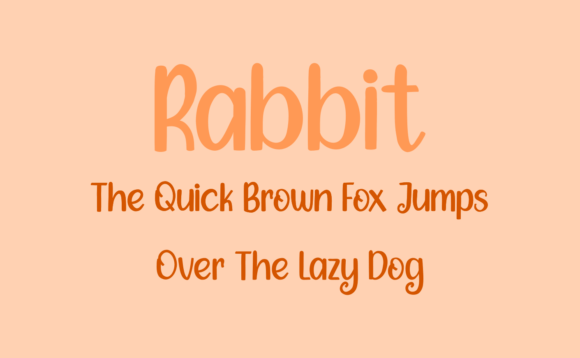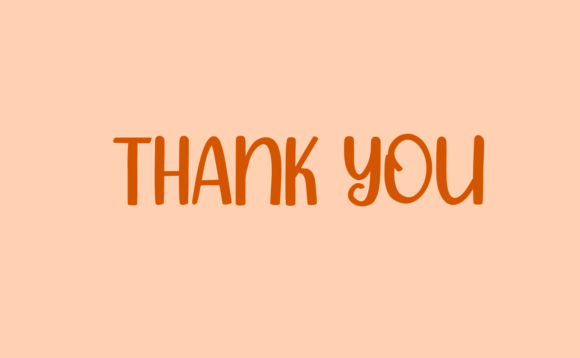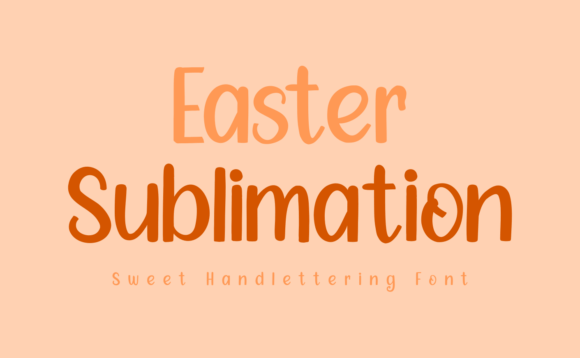
Easter Sublimation Font: Add a Touch of Whimsy to Your Designs
Are you looking for a font that can add a playful and casual touch to your Easter-themed designs? Look no further than the Easter Sublimation font! This fun and versatile handwritten font is perfect for a wide range of design ideas, from Easter-themed crafts to spring-inspired projects.
What is Easter Sublimation Font?
Easter Sublimation is a carefully crafted handwritten font that exudes a sense of fun and playfulness. Its casual and whimsical feel makes it an excellent choice for designers and crafters who want to add a personal touch to their work. The font’s versatility is one of its standout features, making it suitable for various design projects, including:
- Easter-themed crafts, such as printable art, party decorations, and gift tags
- Spring-inspired projects, like gardening or outdoor-themed designs
- Handmade products, such as customized mugs, t-shirts, or tote bags
- Digital products, like printable planners, journals, or wall art
Key Features of Easter Sublimation Font
So, what makes Easter Sublimation font so special? Here are some of its key features:
- Handwritten style: The font’s handwritten style gives it a personal and casual feel that’s perfect for creating unique designs.
- Versatile: Easter Sublimation font can be used for a wide range of design projects, from fun and playful to more serious and elegant.
- Easy to read: Despite its playful feel, the font is easy to read, making it suitable for designs that require a clear and legible text.
- Customizable: The font can be easily customized to fit your design needs, including changing the color, size, and style.
Tips for Using Easter Sublimation Font
To get the most out of Easter Sublimation font, here are some tips to keep in mind:
- Pair it with other fonts: Combine Easter Sublimation font with other fonts to create a unique and visually appealing design.
- Experiment with colors: The font looks great in a variety of colors, so don’t be afraid to experiment and find the perfect hue for your design.
- Use it for headings and titles: Easter Sublimation font is perfect for headings and titles, adding a touch of whimsy and playfulness to your design.
- Make it your own: Don’t be afraid to add your own personal touch to the font, whether it’s by changing the style or adding your own graphics.
Easter Sublimation Font for Designers and Crafters
Easter Sublimation font is a great addition to any designer’s or crafter’s toolkit. Here are some ways you can use the font:
- Printable art: Create unique and fun printable art, such as Easter-themed posters or spring-inspired wall art.
- Custom gifts: Use the font to create customized gifts, such as mugs, t-shirts, or tote bags.
- Party decorations: Create fun and playful party decorations, such as Easter-themed banners or spring-inspired garlands.
- Digital products: Use the font to create digital products, such as printable planners or journals.
Easter Sublimation font is a fun and versatile handwritten font that’s perfect for designers and crafters looking to add a touch of whimsy to their Easter-themed designs. With its casual and playful feel, this font is suitable for a wide range of design projects, from printable art to customized gifts. So why not give it a try and see how you can use Easter Sublimation font to take your designs to the next level?